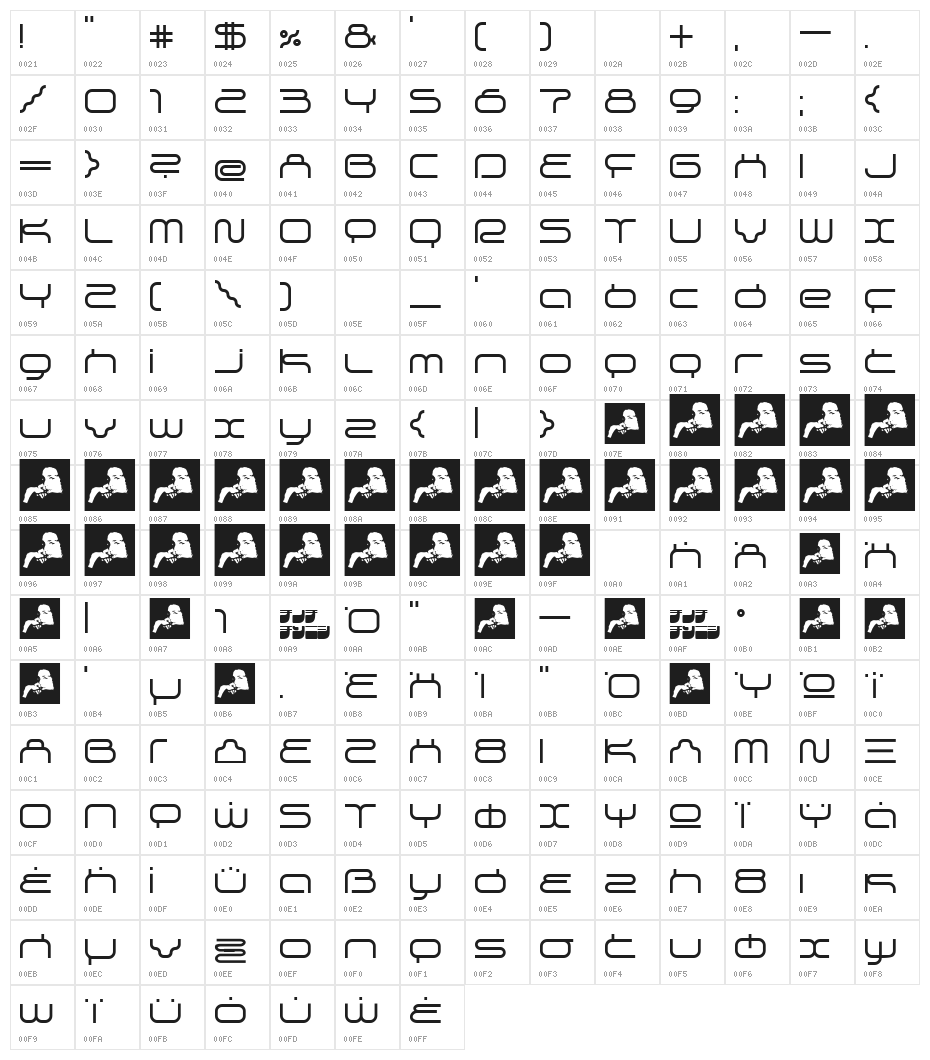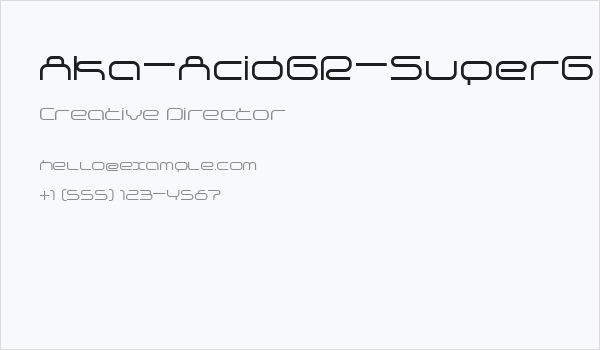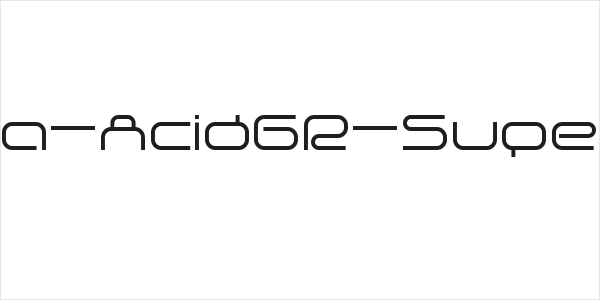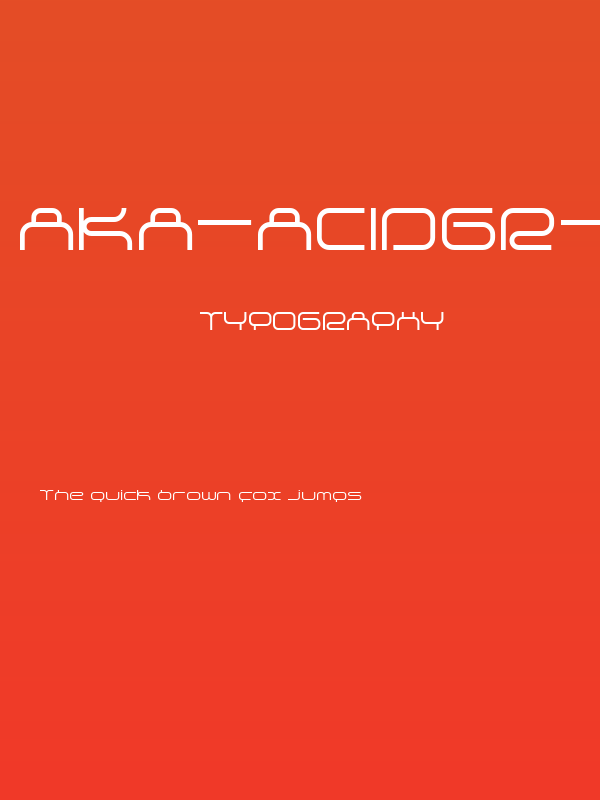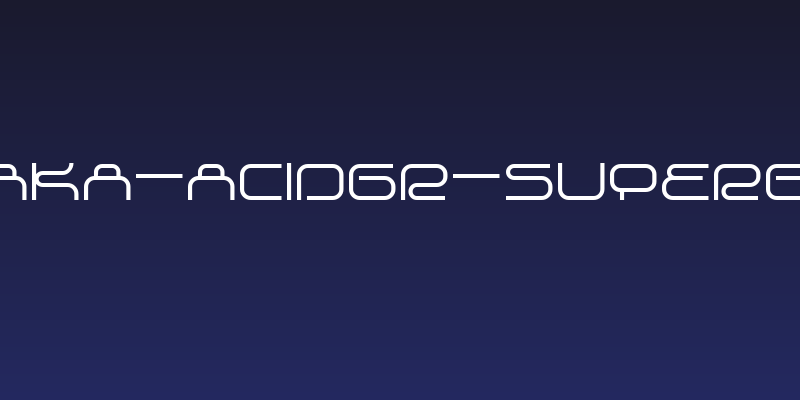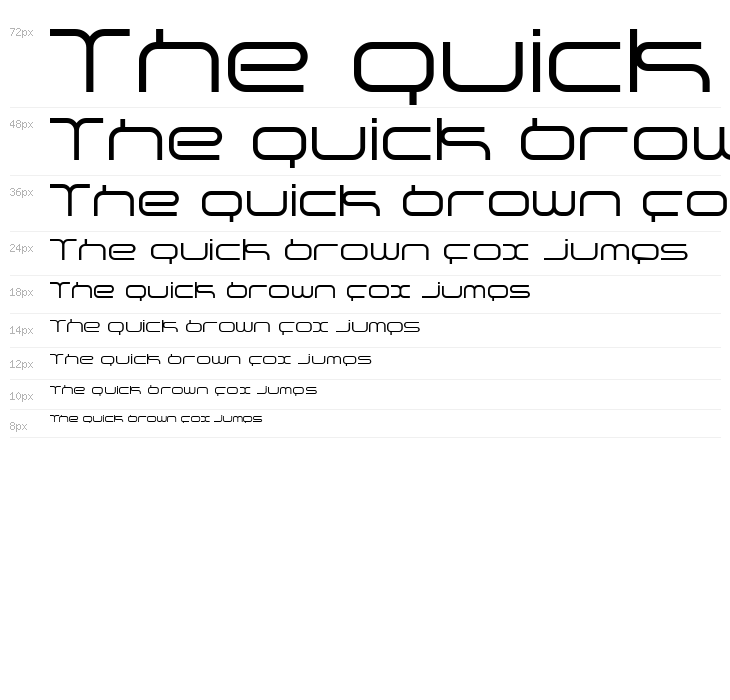
Aka-AcidGR-SuperG Font
Aka-AcidGR-SuperG Description
This font features a futuristic and geometric design with a unique blend of rounded and angular elements. The uppercase and lowercase letters maintain a consistent height, creating a uniform appearance. The characters are constructed with clean, straight lines and subtle curves, giving them a modern and sleek look. The numbers and special characters follow the same design principles, ensuring a cohesive style throughout. The font's distinctiveness lies in its minimalistic yet bold approach, making it suitable for projects that require a contemporary and innovative touch.
Use CaseLogos, Headlines, Digital interfaces
Proposed ProjectsIdeal for technology branding, sci-fi themed designs, modern logos, and digital interfaces.